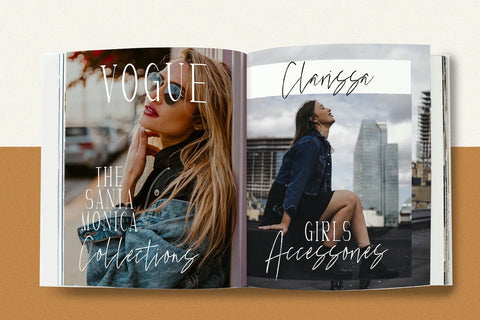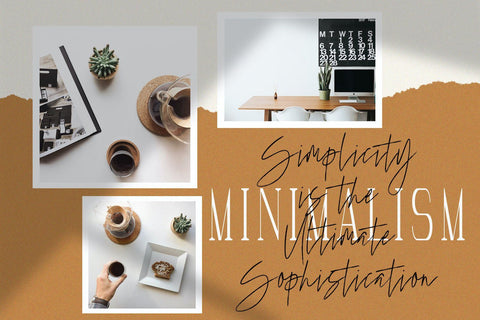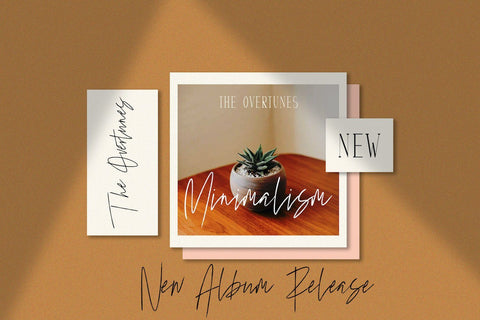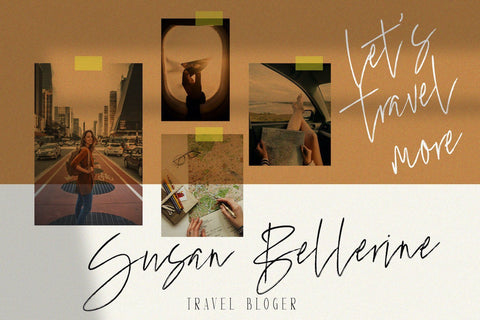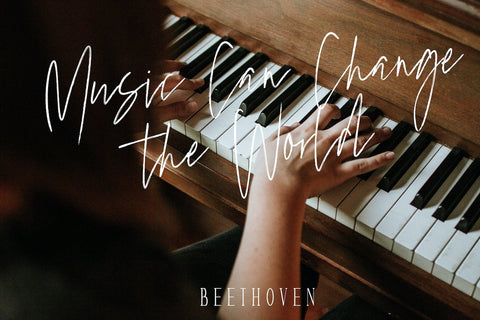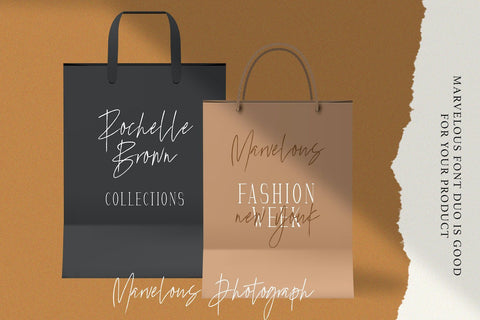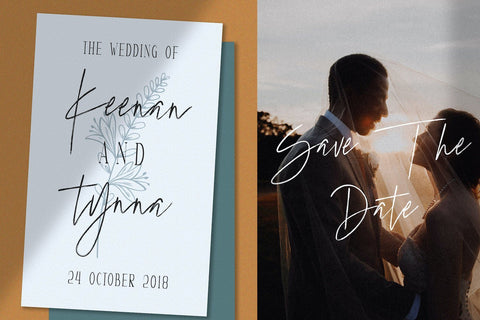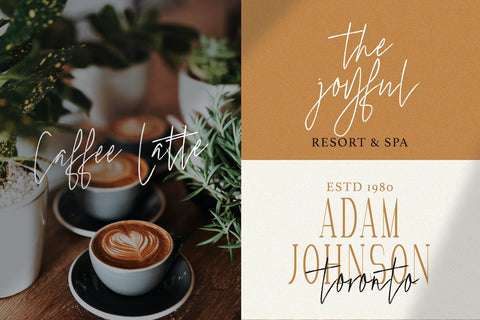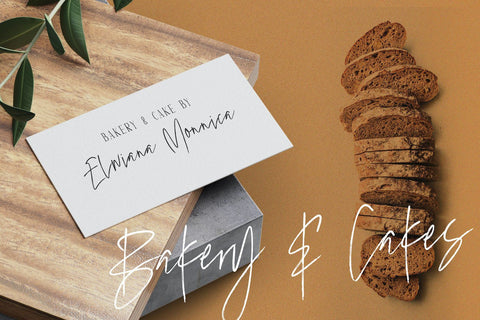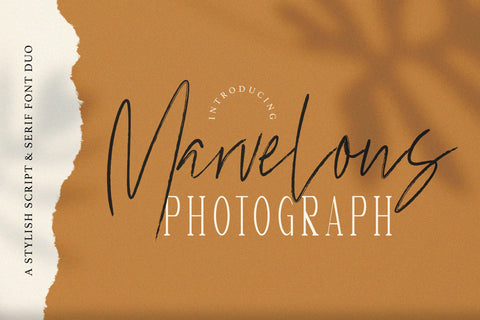
Marvelous Photograph - Font Duo
Introducing Marvelous Photograph - Font Duo
Marvelous Photograph is a spectacular duo font (serif and script). Incredibly versatile, this font fits a wide pool of designs, elevating them to the highest levels. Add this font to your favorite creative ideas and notice how it makes them come alive!